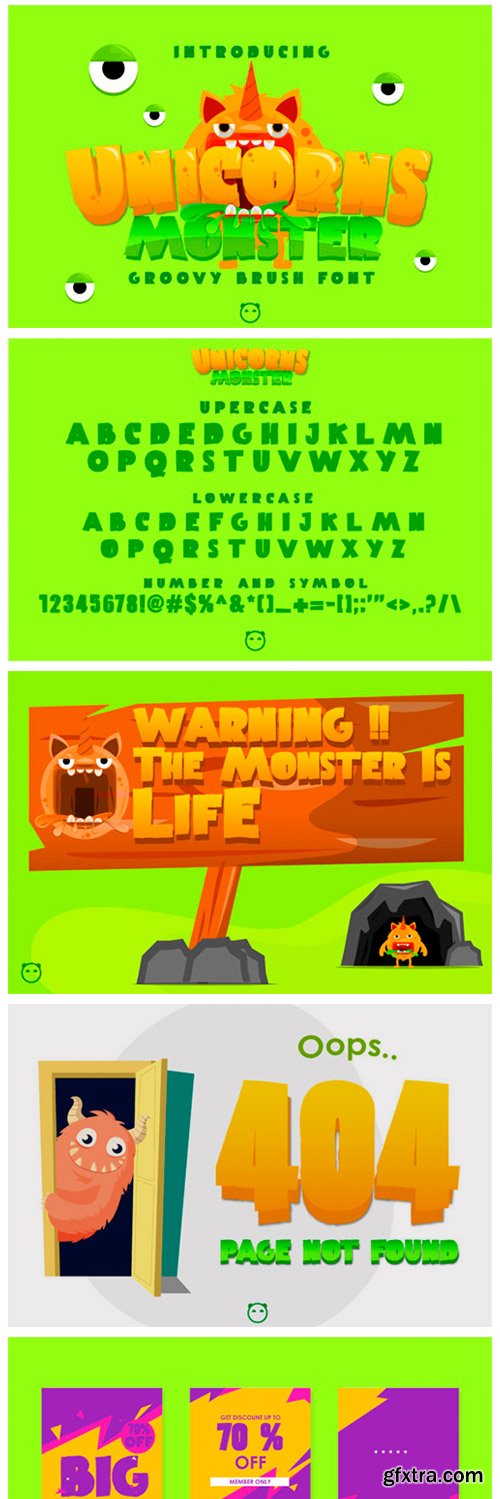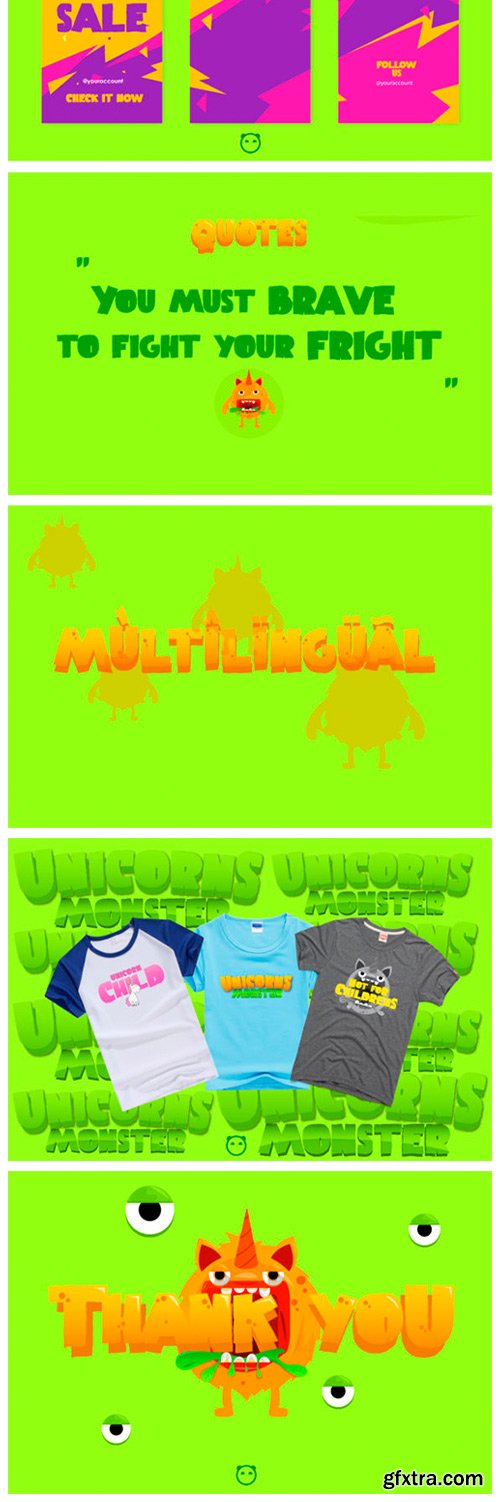
Unicorns Monster Font
Unicorns Monster is a bold display font, beautifully created with a brush pen. Clean and a little bit quirky, this font is the perfect fit for all of your logos, branding, social media, and crafty DIY projects.